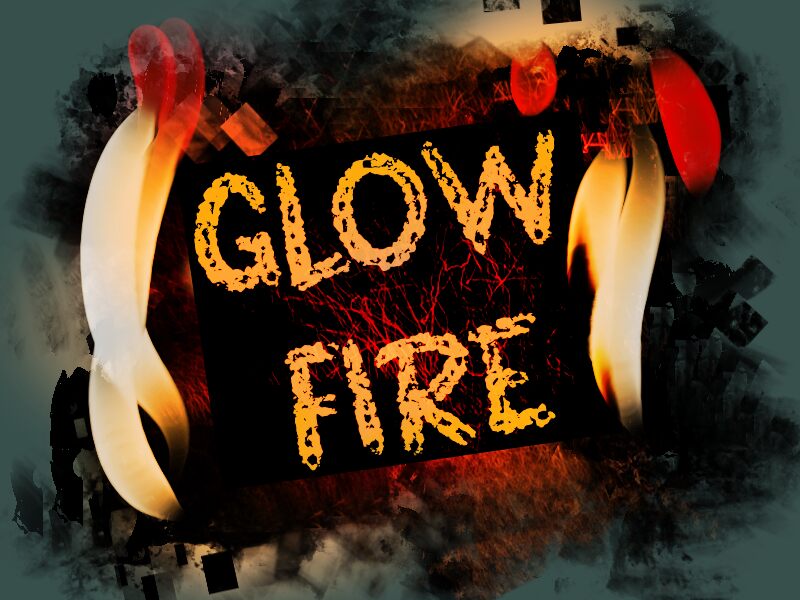
GLOW FIRE
Glow Fire, crafted by designer wep, is a stunning script font that combines the expressive appeal of bold strokes with a trash style. Each character seems to dance with an almost chaotic energy, creating a visually captivating and gritty texture. This font’s bold presence stands out effortlessly, making it perfect for designs seeking a raw and edgy aesthetic.
From band posters to street art-inspired projects, Glow Fire thrives in environments that embrace unconventional beauty. Its distinctive personality can infuse your work with a rebellious spirit, ideal for creative branding or attention-grabbing headers. Let Glow Fire set your designs ablaze with its fiery charm and unique flair!